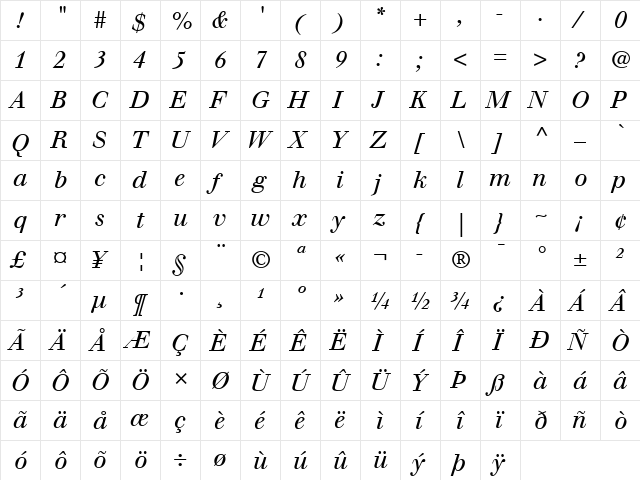
Walbaum LT Italic Regular
Design Context for Walbaum LT Italic Typeface
Walbaum LT Italic takes a measured approach to typography — its balanced proportions and neutral character make it a reliable workhorse for both digital and print work. The slanted form adds forward momentum and visual energy. The delicate stroke weight brings airiness and refinement to layouts.
Pro Tip: Use Walbaum LT Italic for emphasis, pull quotes, and subheadings where its slanted energy can add rhythm to the layout.